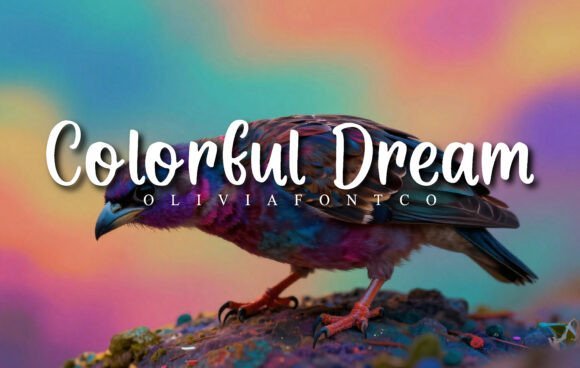
Introduction to Colorful Dream Font
Unlock the door to a world of imagination with Colorful Dream, a vibrant display font.
This typeface strikes a delightful balance between playful energy and artistic grace, featuring soft, fluid strokes that feel as natural as a handwritten note in a dream journal The magic of Colorful Dream lies in its gentle, rounded terminals and rhythmic flow.
Key Features of Colorful Dream Font
Why Choose Colorful Dream Font?